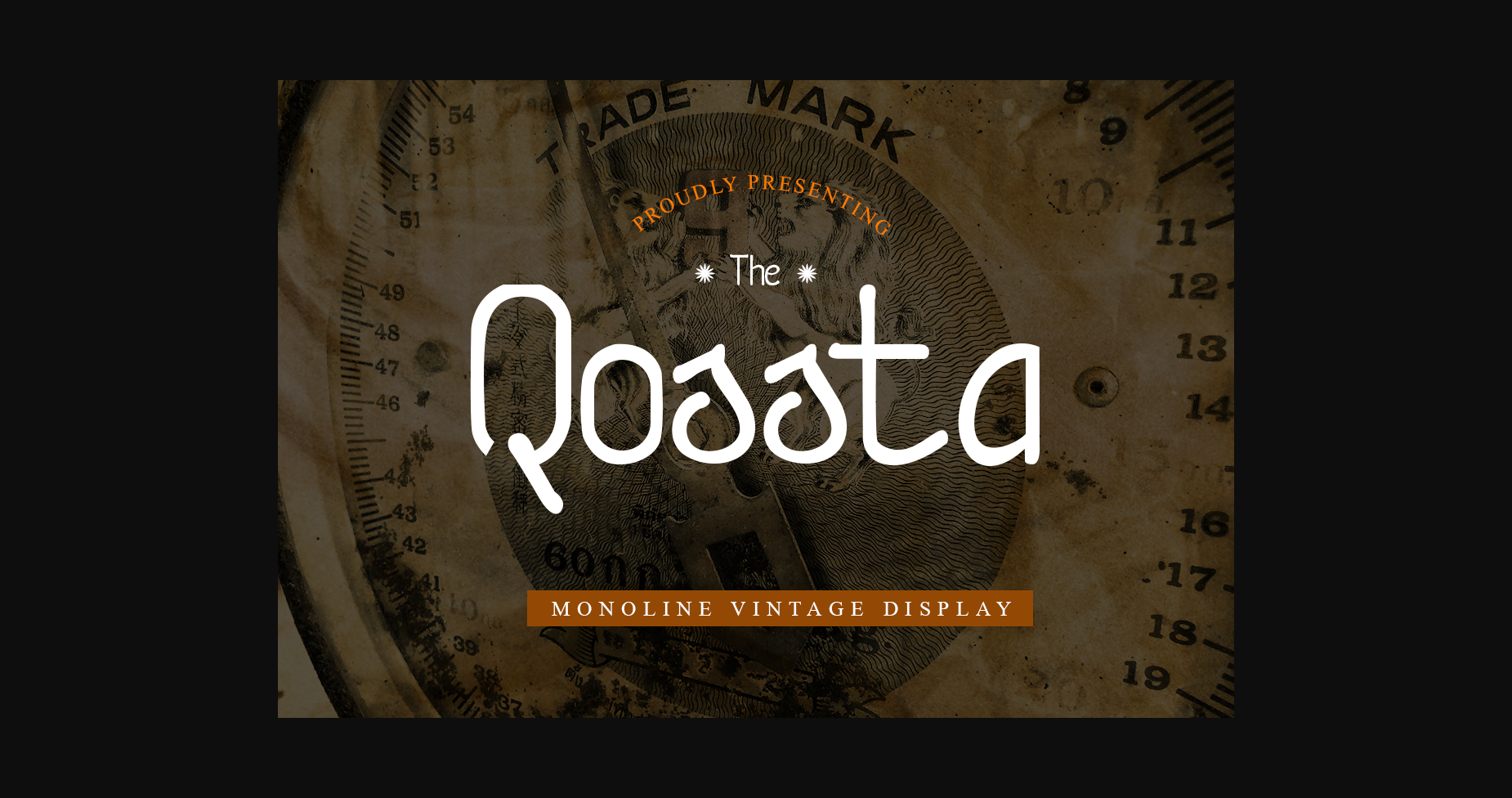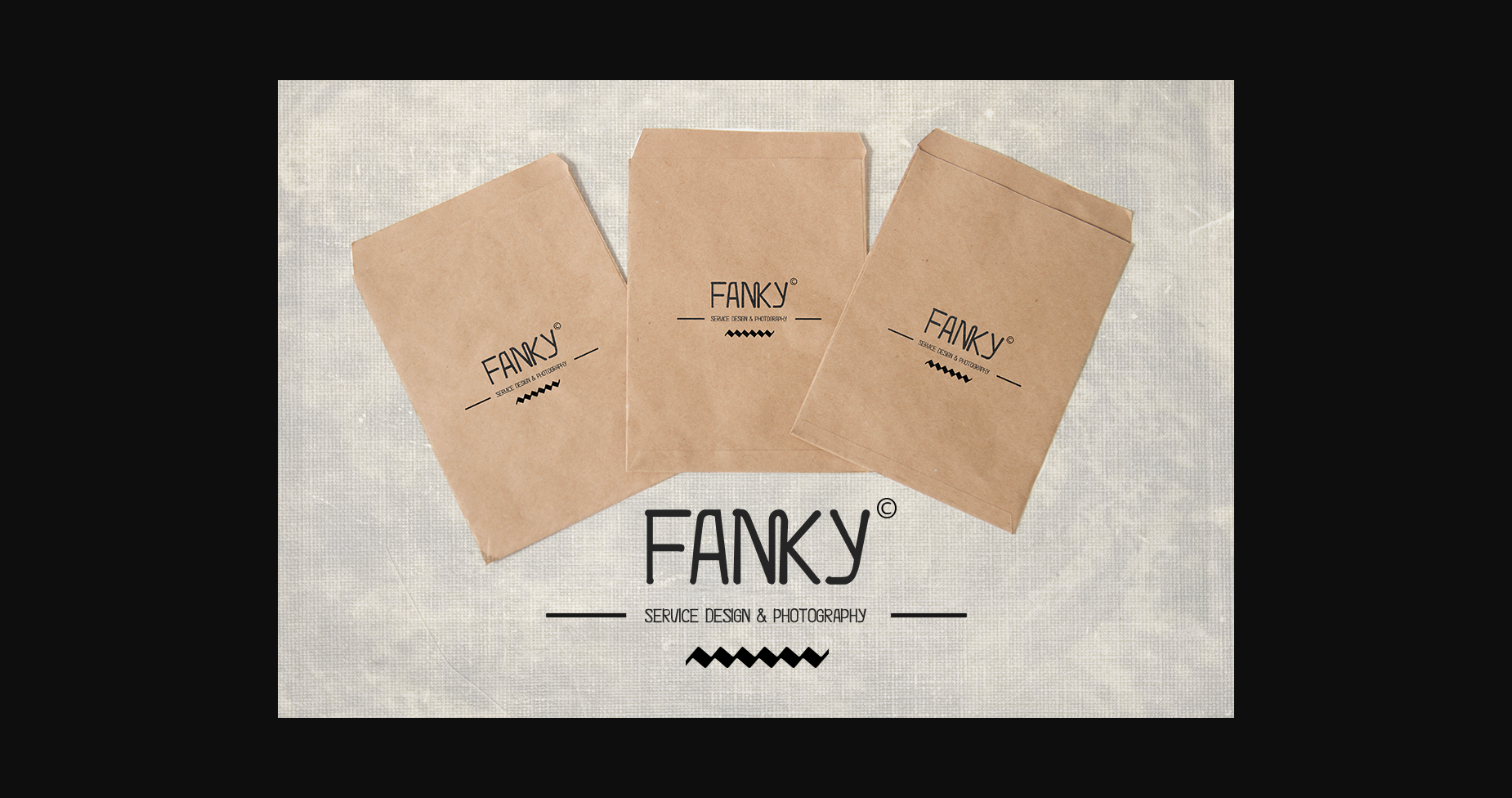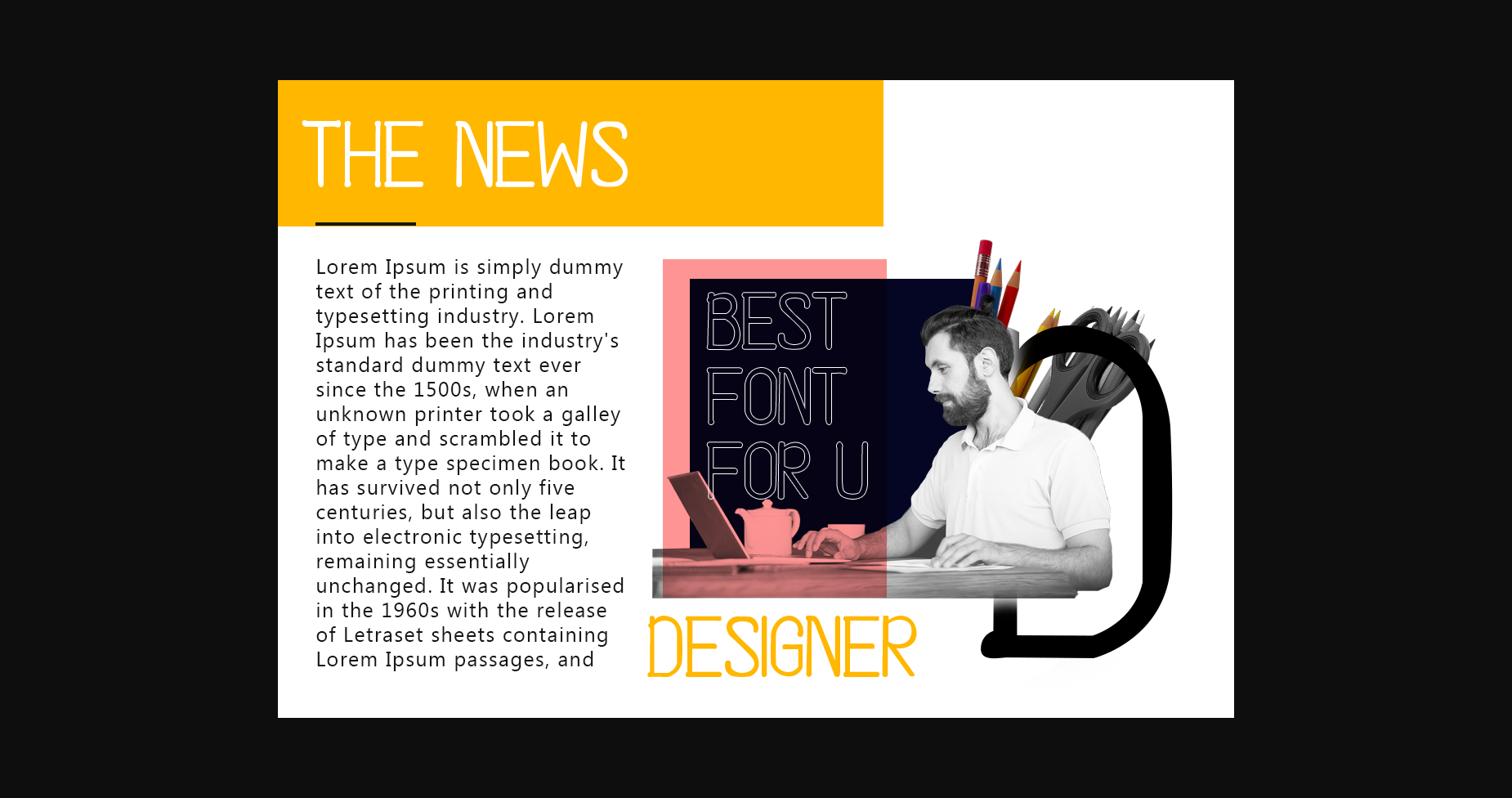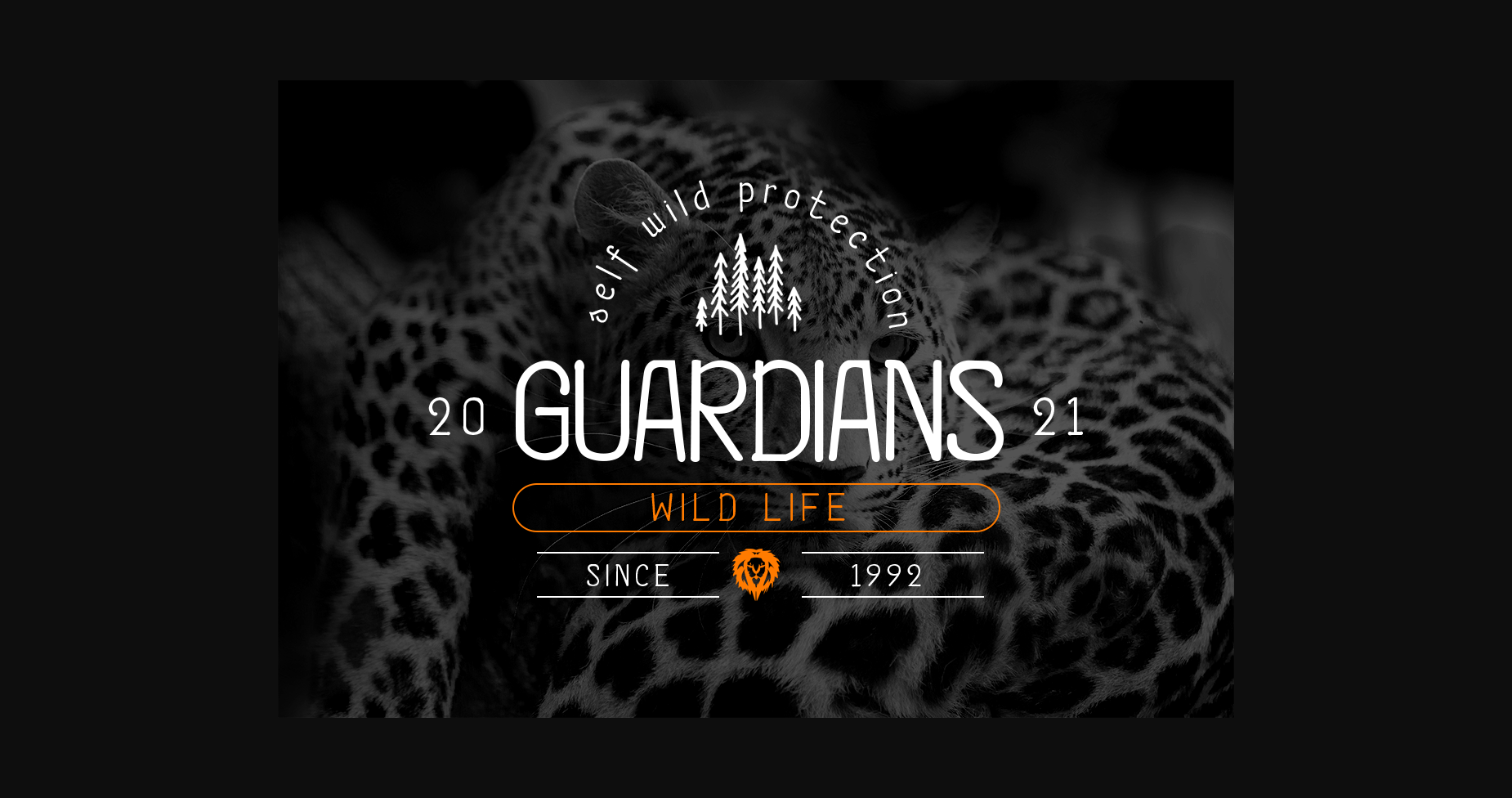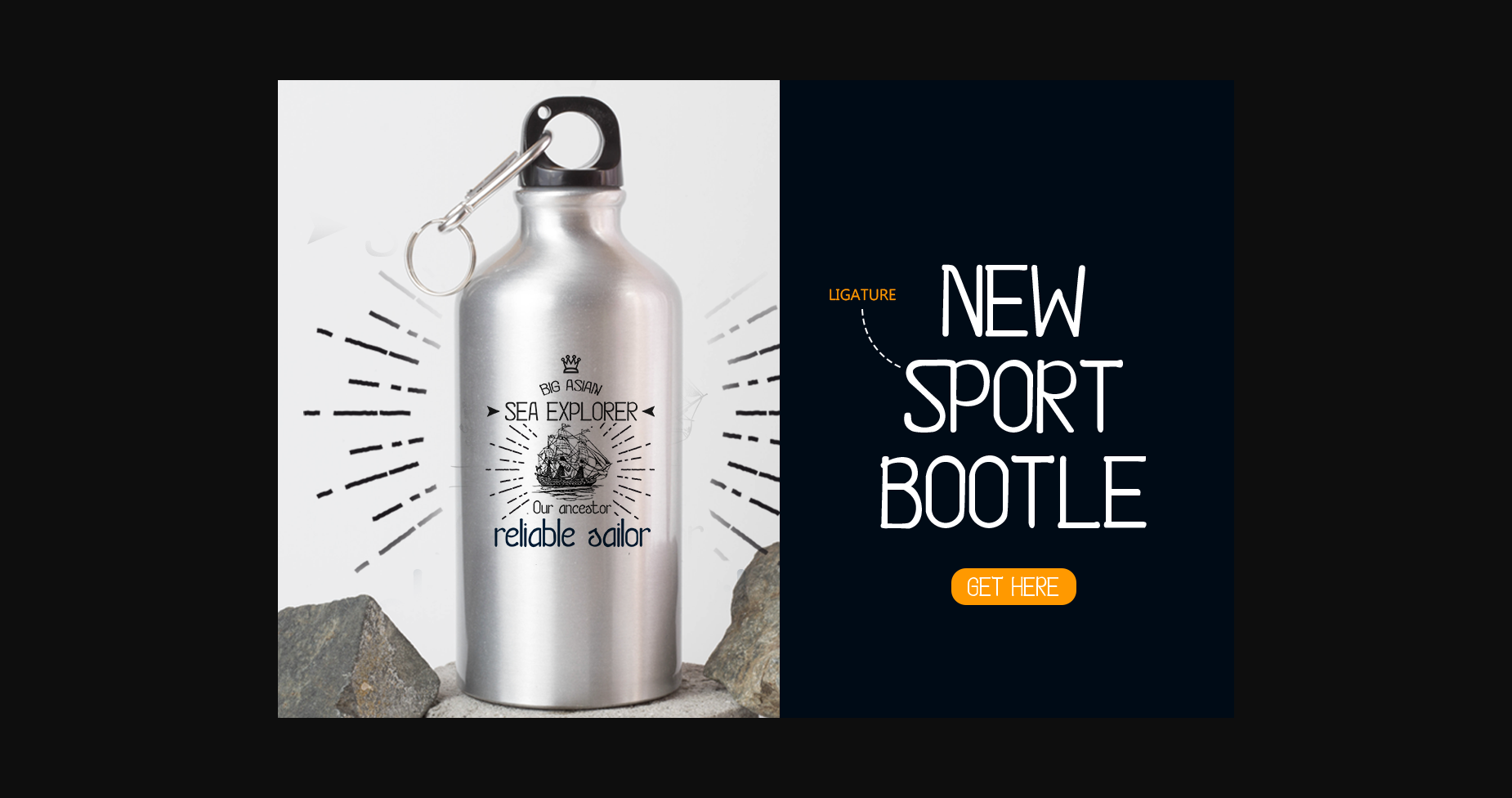
Qossta Font
About Qossta Font
Qossta is vintage sans serif font. it works greatly on various designs, both formal and informal. The only limit is your imagination.